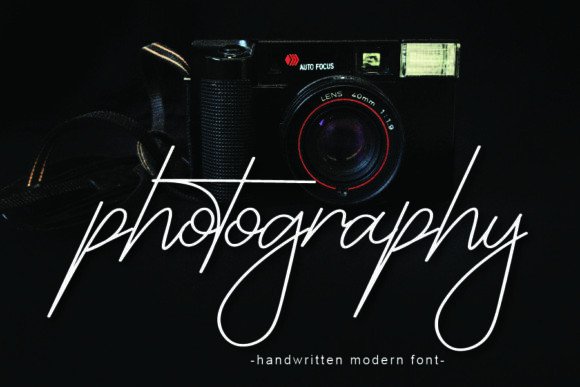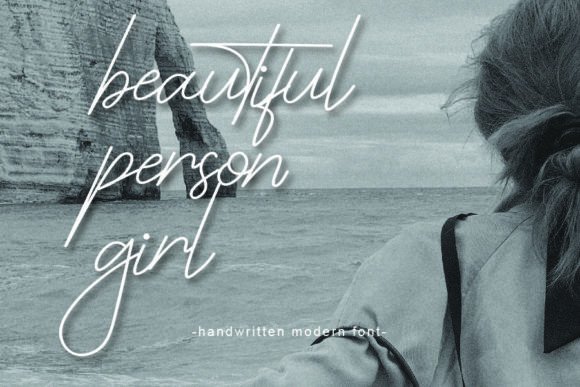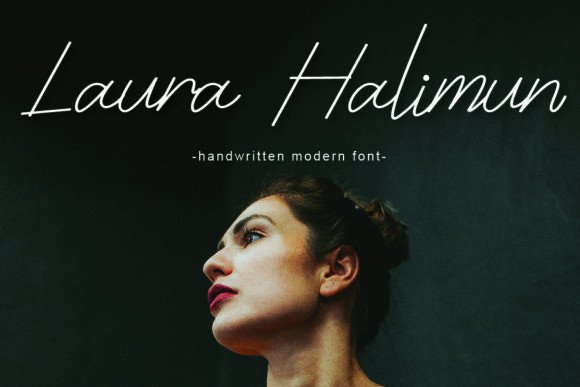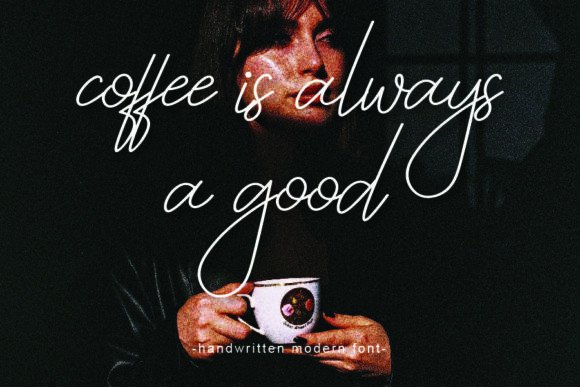
The Art of Handwritten Perfection: Unveiling the Autography Font
There’s something magical about the first spark of creativity – the moment when an idea starts to take shape, and you can almost see the entire project unfolding before your eyes. For designers, this moment is what drives us to create something truly special. And that’s exactly what the Autography Font offers – a unique opportunity to bring your designs to life with its beautiful, handwritten charm.
This exquisite font is perfect for logos, wedding stationery, photography watermarks, and modern websites. Its distinct style and timeless appeal make it a valuable asset for designers looking to add a personal touch to their work. With the Autography Font, you can create spectacular designs that stand out from the crowd and leave a lasting impression.
Autography Font Key Features
- Font Family: Autography Font is a unique, handwritten script font designed to mimic the look of handwritten text.
- Font Size: The font is designed to be highly legible at various font sizes, with a recommended range of 12-48 points for optimal readability.
- Resolution: Suitable for high-resolution displays, including Retina and 4K screens, with clear and crisp text rendering at resolutions up to 300 DPI.
- Unique Characteristics: Autography Font features a distinctive, flowing script style with subtle variations in letterform and stroke width, giving it a natural, handwritten feel.
- Language Support: The font includes comprehensive language support for Latin-based languages, including English, Spanish, French, German, Italian, and many others.
Autography Font Review
As a designer, I was excited to dive into the Autography Font. Here’s my honest take on what works well and what doesn’t.
- Cursive elegance: Autography Font brings a touch of sophistication with its flowing, handwritten style.
- Legibility: Despite its cursive nature, the font is surprisingly easy to read, making it suitable for body text.
- Unique character set: The font includes a wide range of characters, including accents and punctuation, which adds to its charm.
- Limited weight options: Autography Font only comes in a few weights, which may limit its versatility in certain design scenarios.
- No italic or oblique styles: While the font’s cursive nature is elegant, the lack of italic or oblique styles can be a drawback for some designers.
- May not be suitable for small text: Due to its cursive nature, Autography Font may not be the best choice for small text or headlines where legibility is crucial.
Overall, Autography Font is a beautiful and elegant font that excels in situations where a cursive or handwritten feel is desired. While it has its limitations, it’s a solid choice for designers looking to add a touch of sophistication to their work.
Tips for Getting the Most Out of Autography Font
Use Autography Font to create unique and eye-catching titles, headings, and quotes. Experiment with different font sizes and colors to add visual interest to your design. Consider pairing Autography Font with other fonts to create a visually appealing contrast.
Autography Font is perfect for creating invitations, posters, and social media graphics. It’s also great for adding a touch of elegance to business presentations and reports. Use it to create memorable and engaging content that grabs the attention of your audience.